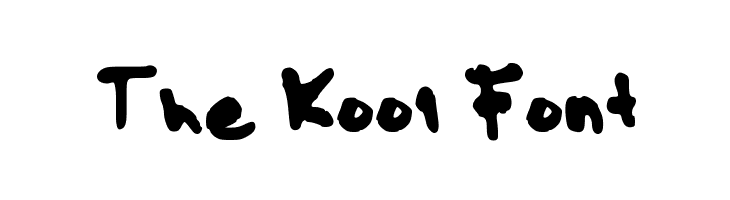
( Fonts by Goma Shin )
A playful, handwritten font with irregular, whimsical strokes.
( Fonts by Gyom Seguin - last-soundtrack.daportfolio.com )
A distressed, grunge-style font with a hand-drawn, energetic appearance.
( Fonts by Dibujado )
A bold, hand-drawn style font with rough, jagged edges and a dynamic, energetic feel.
( Fonts by Jens R. Ziehn - www.filmhimmel.com )
A whimsical, hand-drawn font with elongated, irregular letterforms and a mysterious vibe.
A playful, bold handwritten font with a casual and friendly style.